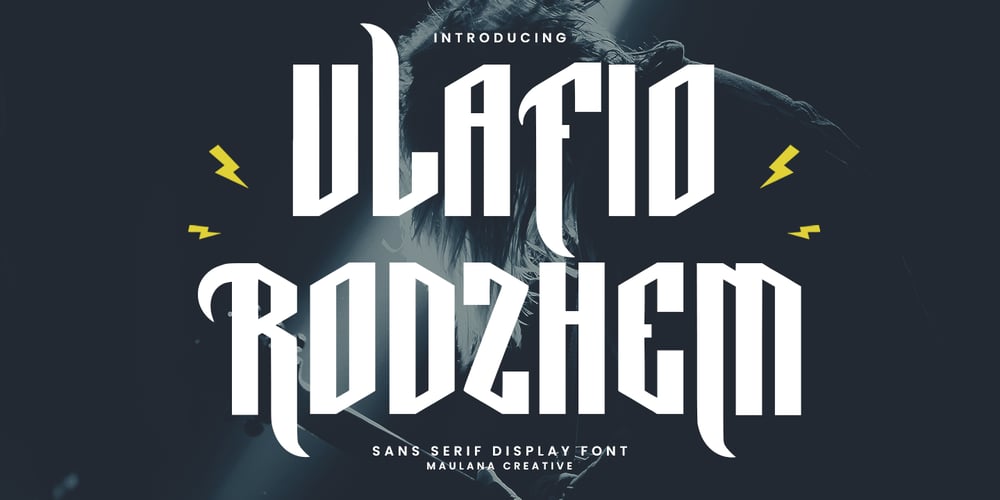
MC Vlafio Rodzhem Font Family was designed by Gilang Maulana and published by Maulana Creative. MC Vlafio Rodzhem contains 1 styles and family package options. Vlafio Rodzhem sans music display font decorative, bold stroke, fun character with a bit of ligatures. To give you an extra creative work. Vlafio Rodzhem sans music display font decorative support multilingual more than 100+ language. This font is good for logo design, Social media, Movie Titles, Books Titles, a short text even a long text letter and good for your secondary text font with script or serif. Make a stunning work with Vlafio Rodzhem sans music display font decorative. Cheers, Maulana Creative